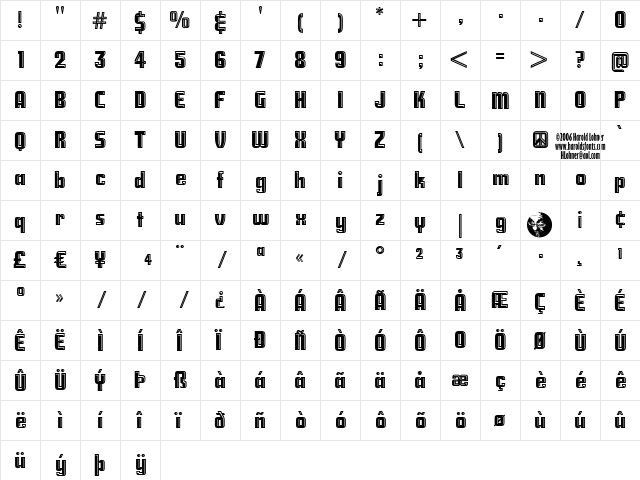
National Debt Hilite Regular
Design Context for National Debt Hilite Typeface
National Debt Hilite takes a measured approach to typography — its balanced proportions and neutral character make it a reliable workhorse for both digital and print work.